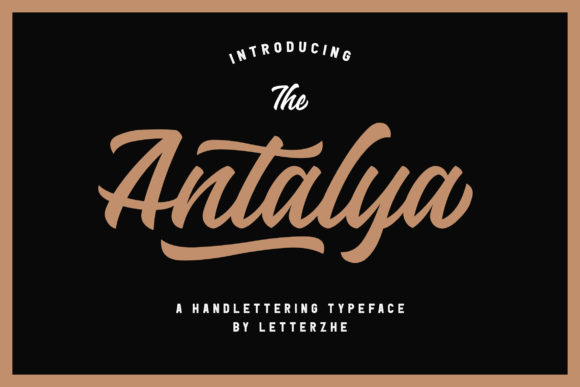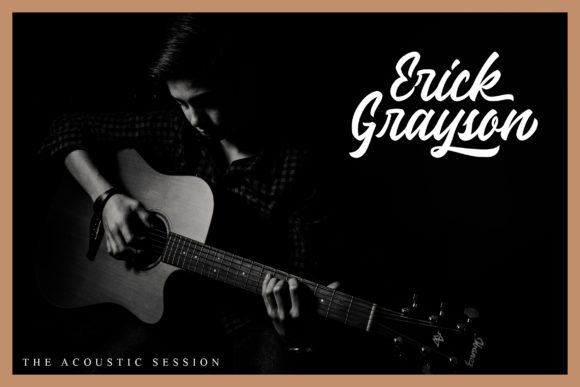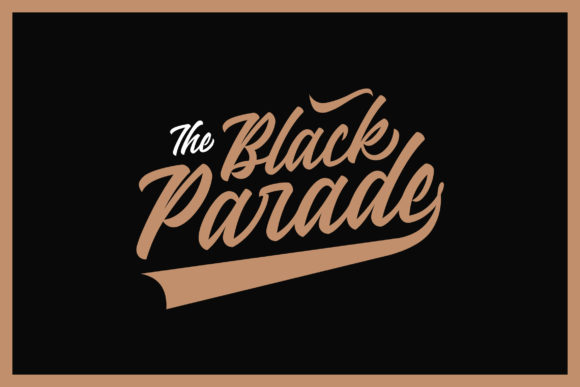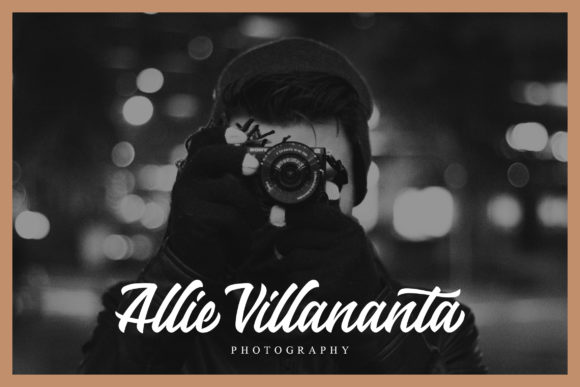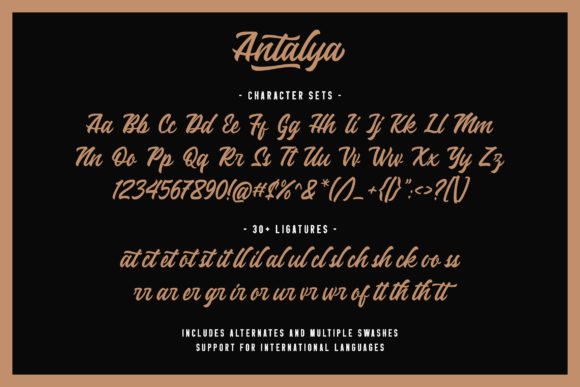
Antalya Font
About Antalya Font
Antalya is inspired by classic typography and brings its own unique style to any design project. This fantastic script font is best suited for headlines of all sizes, as well as for blocks of text that have both maximum and minimum variations. Whether it’s for web, print, moving images or anything else – Antalya will look spectacular.